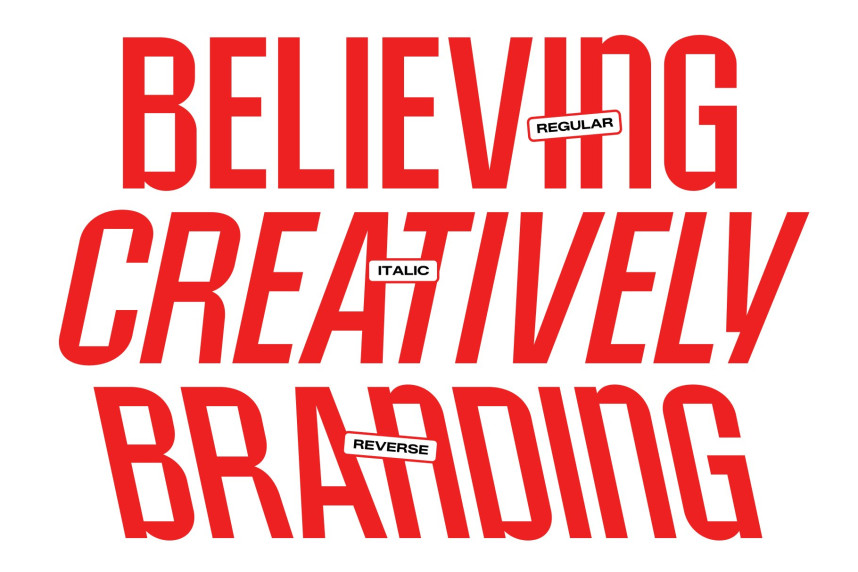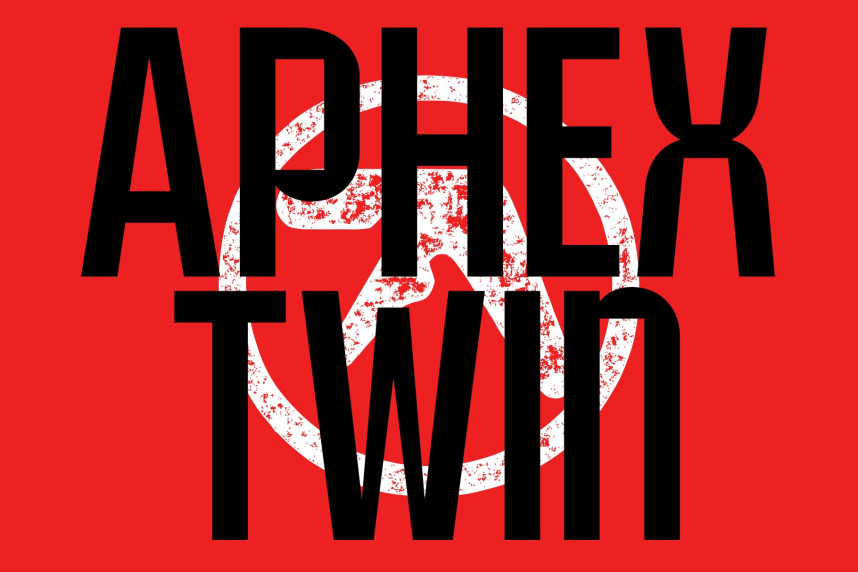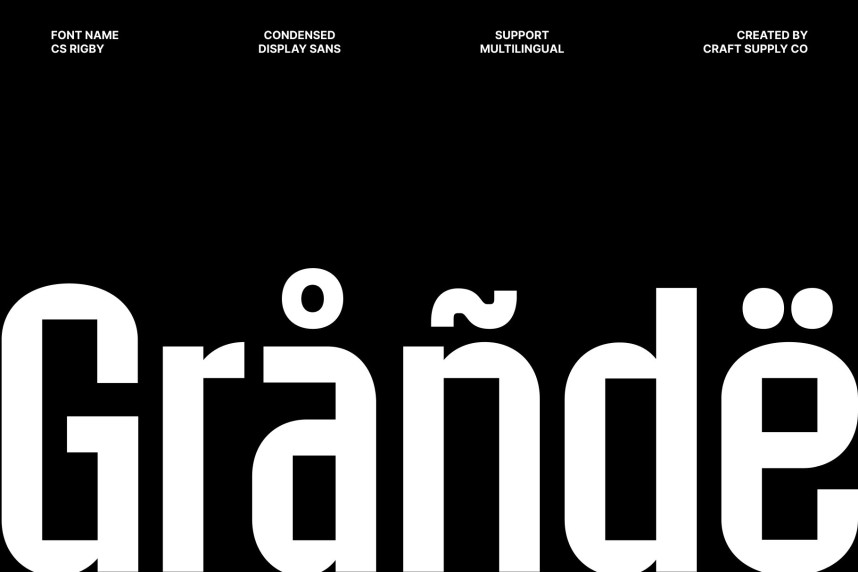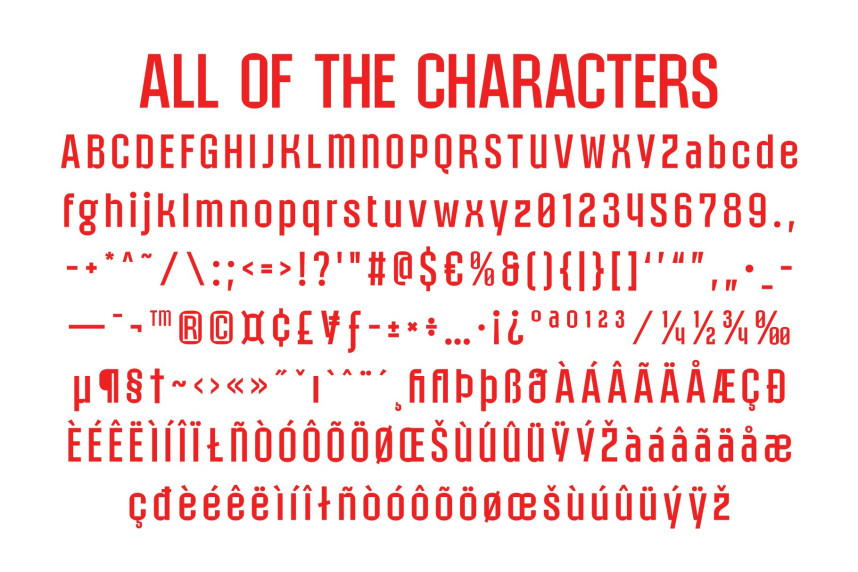
CS Rigby Font
CS Rigby Font – Condensed Industrial Sans Serif with Technical Strength
Condensed Sans Serif with Industrial Character
This is a condensed sans serif font built with a bold industrial spirit and a distinctly technical attitude. Designed to project strength and confidence, this typeface combines modern geometry with a masculine edge, making it perfect for designs that demand authority and impact. Its narrow proportions and structured forms create a commanding visual presence in every composition.